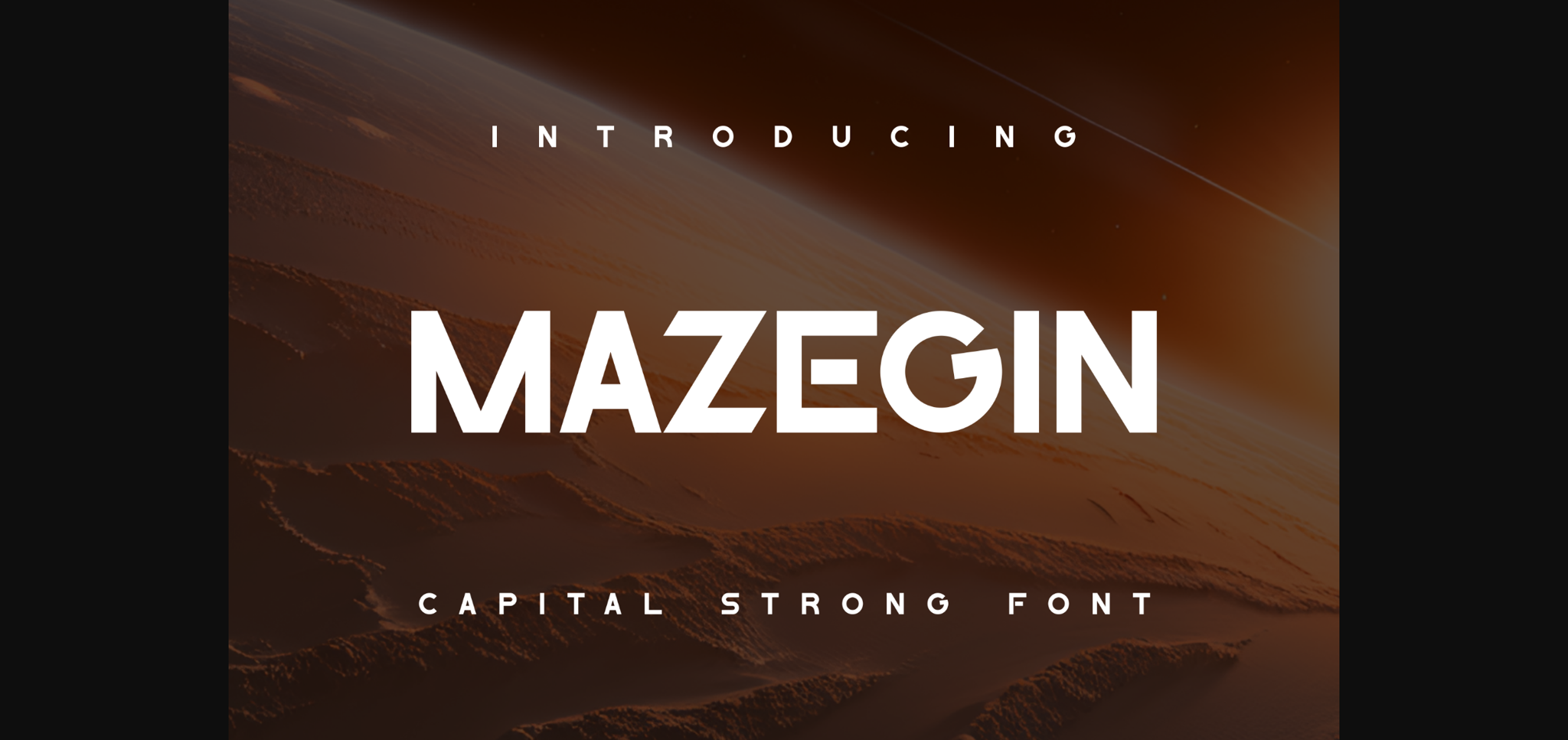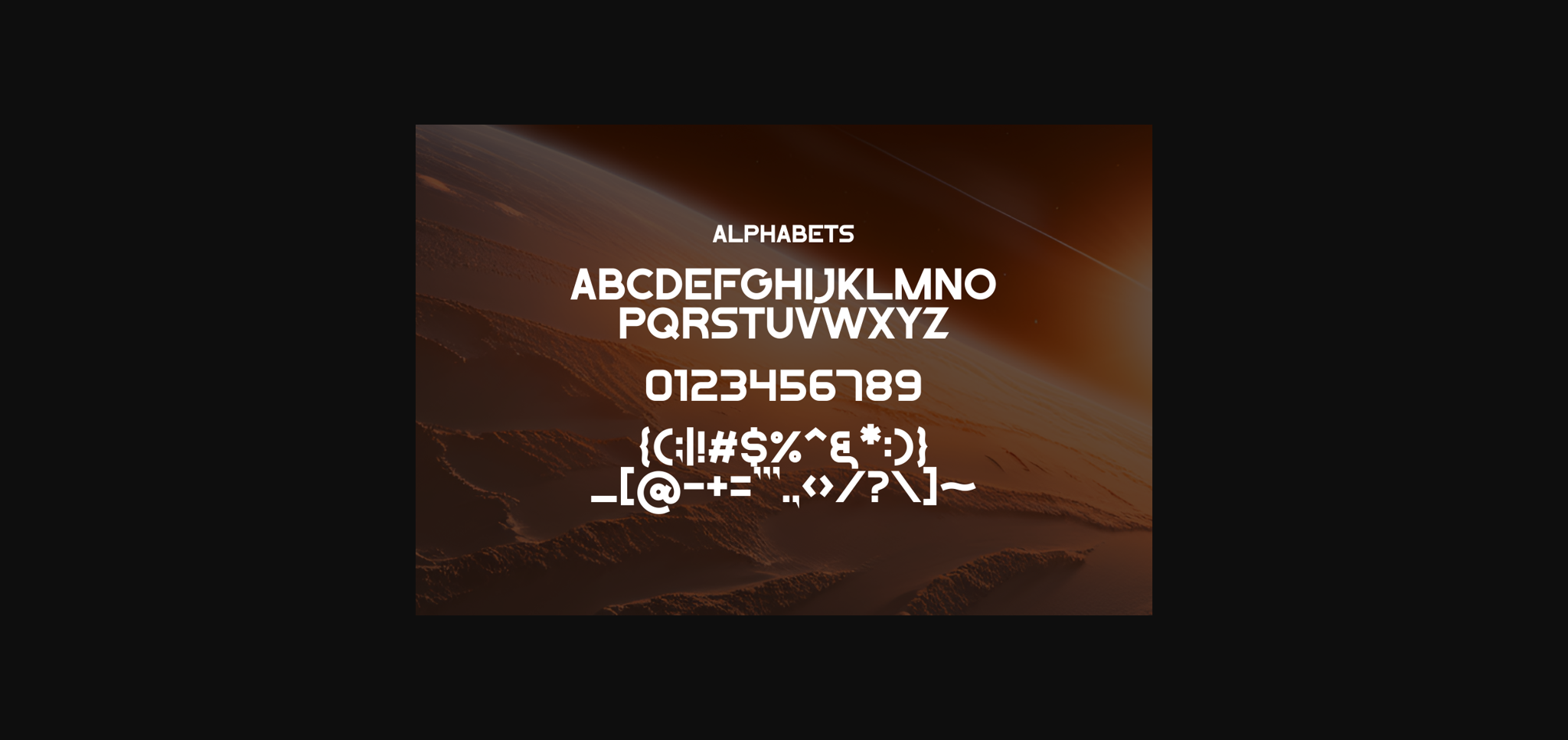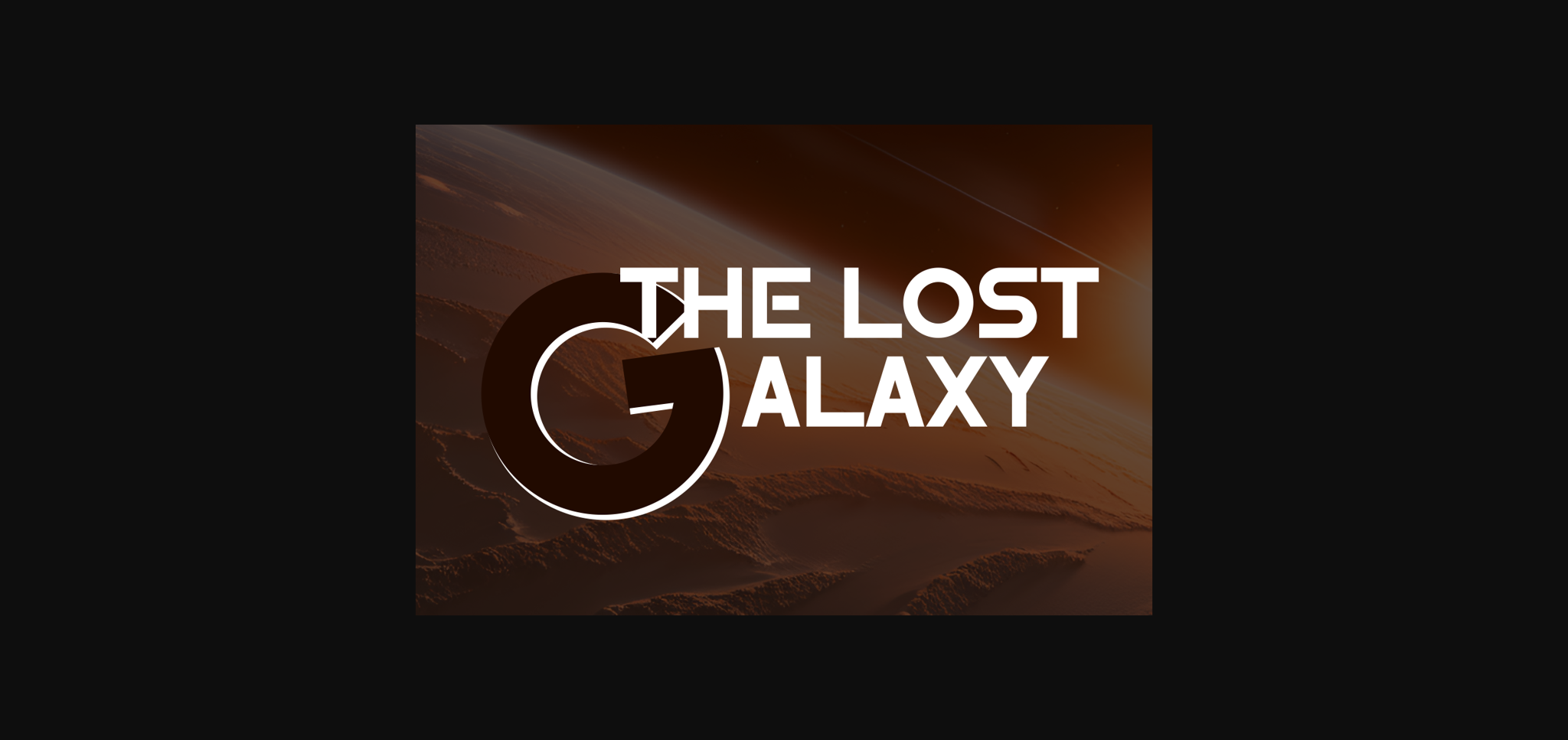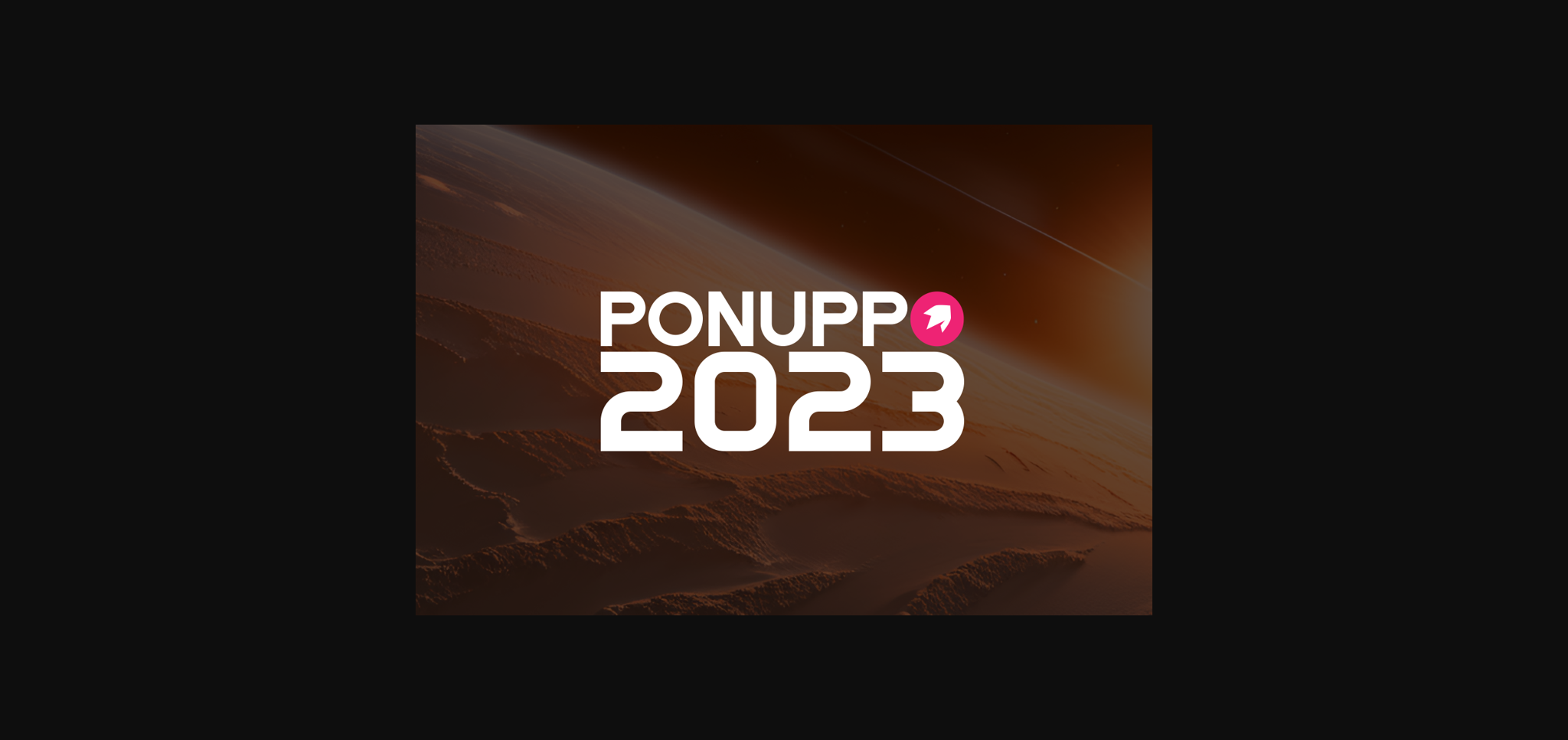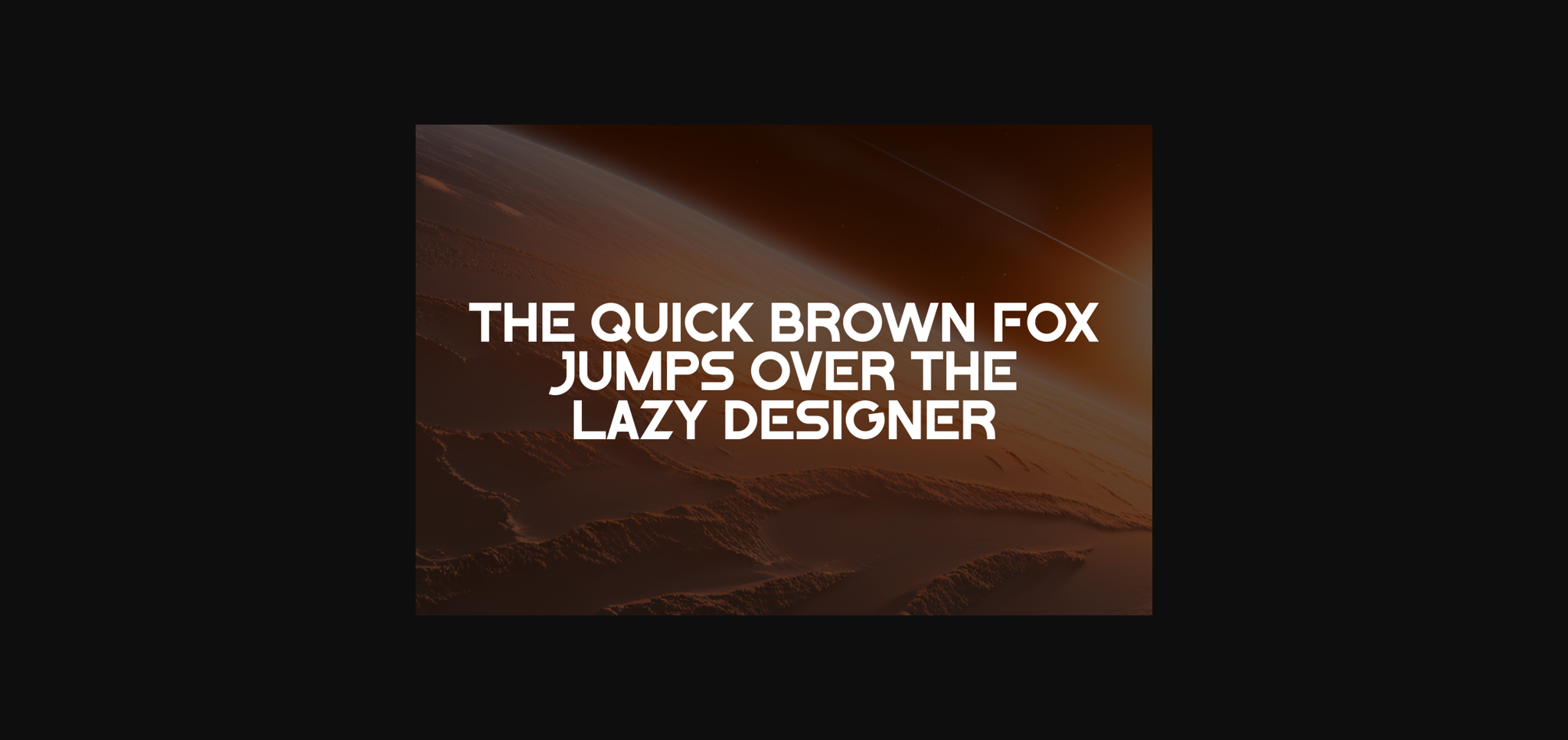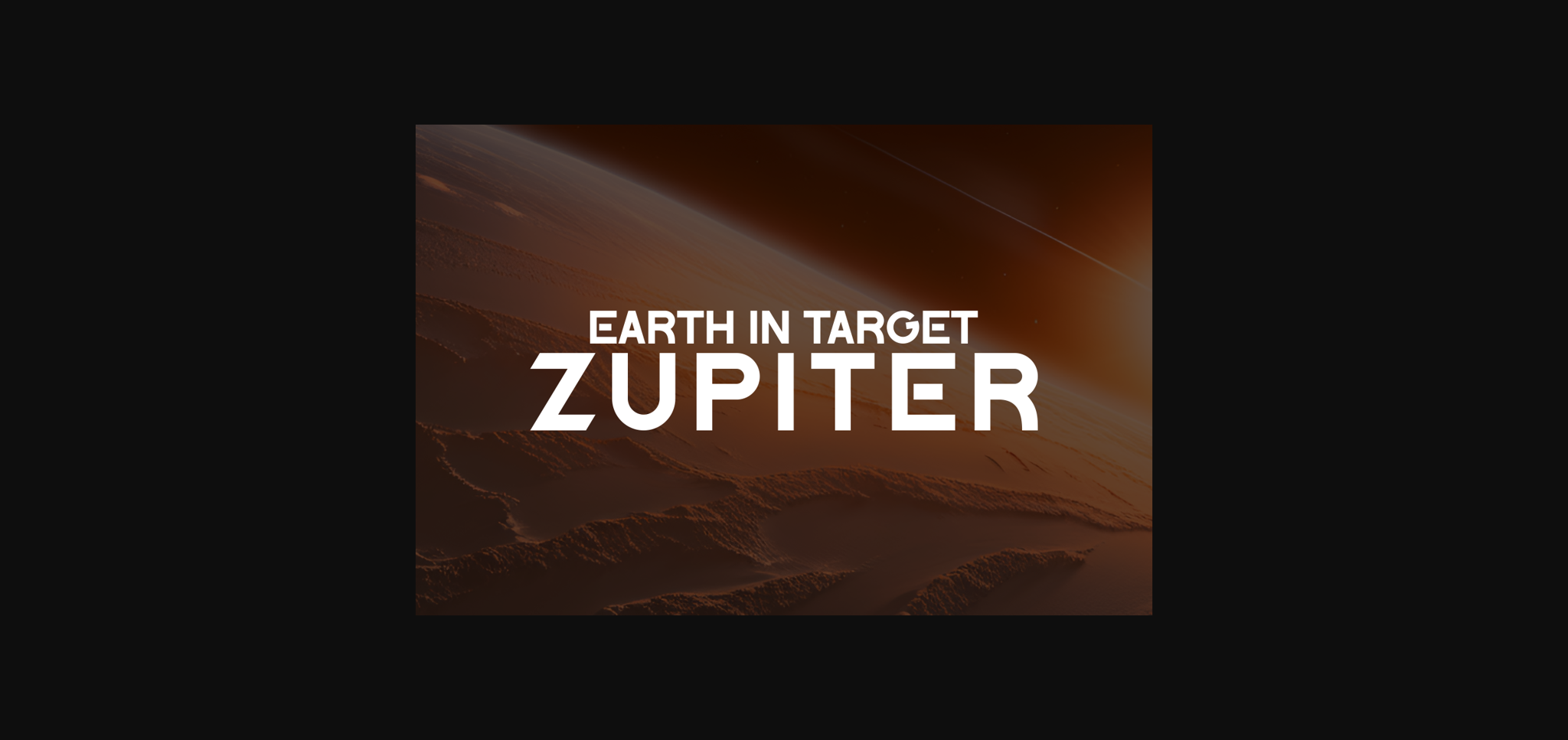
HomeSans Serif FontsMazegin Font Sans Serif Fonts Mazegin Font FacebookXPinterestWhatsApp 1 of 8 ... Mazegin Font Poster 2... Mazegin Font Poster 3... Mazegin Font Poster 4... Mazegin Font Poster 5... Mazegin Font Poster 6... Mazegin Font Poster 7... Mazegin Font Poster 8... About Mazegin Font Mazegin is an elegant and modern sans serif font. This minimalist and clean vibe can easily apply to your favorite designs such as book covers, magazines, social media posts, invitations, and so much more. DOWNLOAD NOW People also explored Monkey Font Valledofas Font Marlina Font Golf Font Bestalia Font Stewart Font Bargain Hunter Over Cutting Font Football Font 450 0 TagsMazeginMazegin Font Previous articleMorchinda FontNext articleSolartyce Font LEAVE A REPLY Cancel reply Comment: Please enter your comment! Name:* Please enter your name here Email:* You have entered an incorrect email address! Please enter your email address here Website: Save my name, email, and website in this browser for the next time I comment. Personal Use Free Die Nasty Personal Use Free Read more about this font William Personal Use Free Read more about this font Party Pooper Personal Use Free Read more about this font Mallvirra Personal Use Free Read more about this font BLOG Using Fonts in Digital Marketing: Tips to Strengthen Your Brand Identity In the realm of digital marketing, every visual element plays a crucial role in shaping a brand's identity, and fonts are no exception. The... How to Install and Use Fonts on Windows, macOS, and Web Projects Where to Buy American Fonts Online in 2024 Fonts That Capture the Spirit of New York City